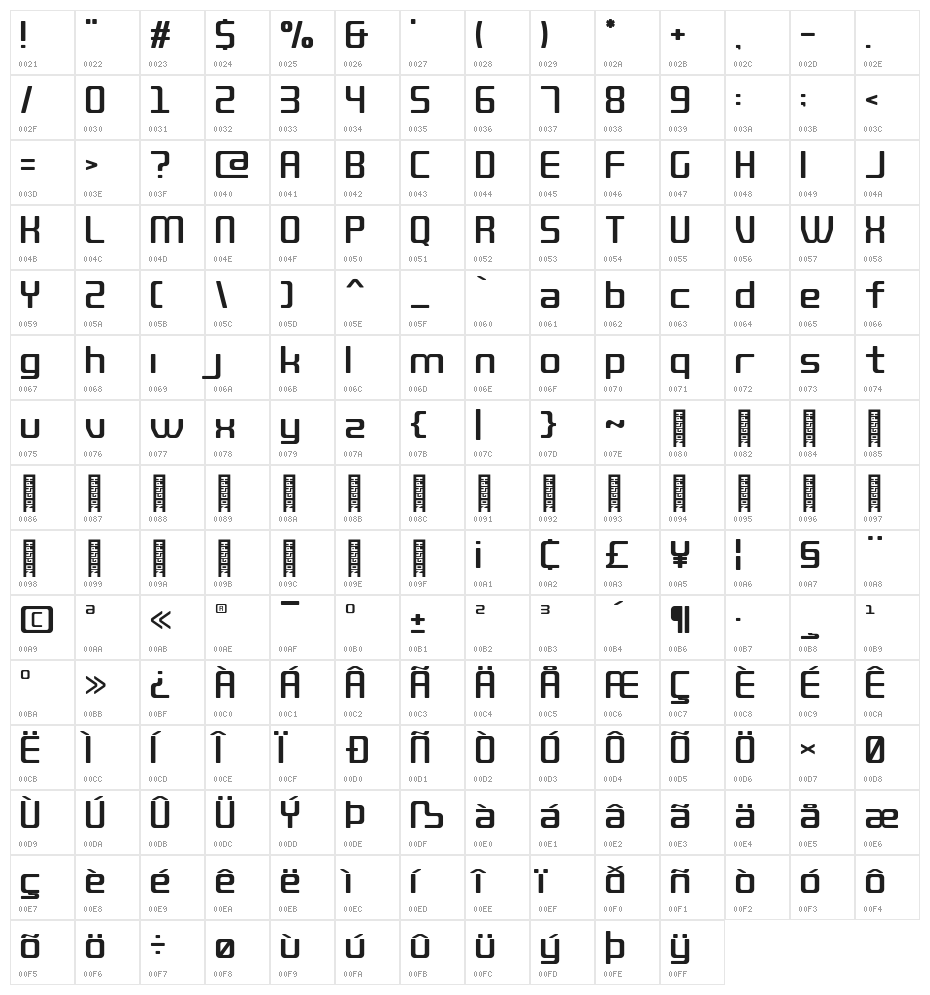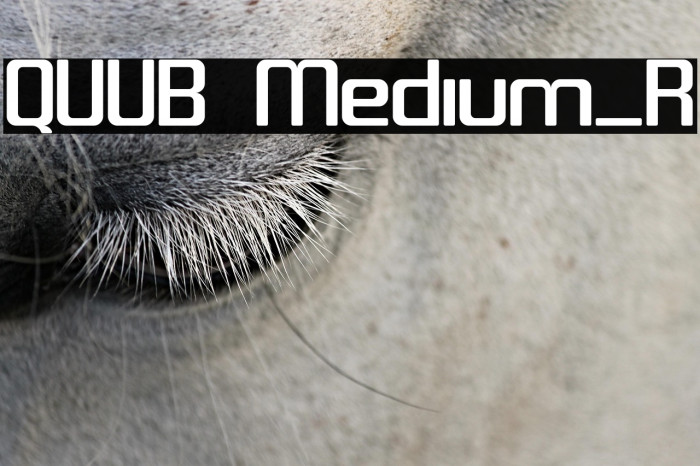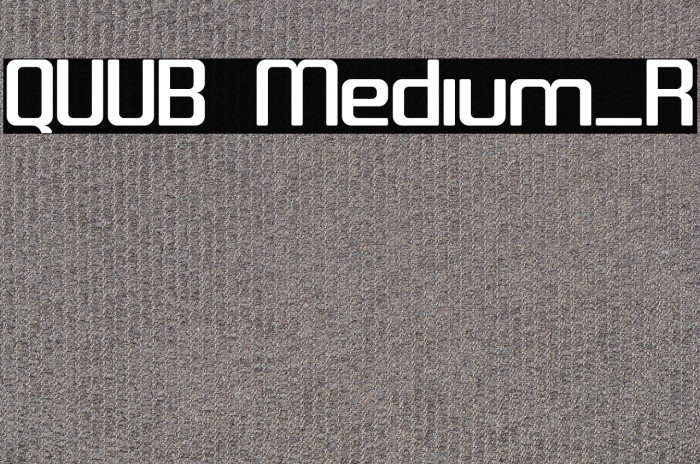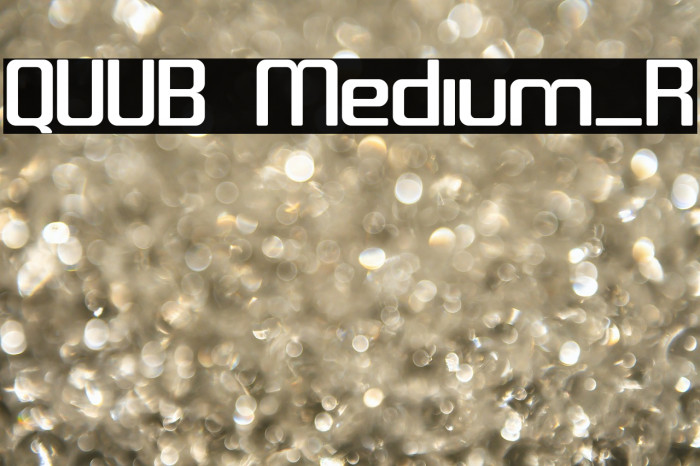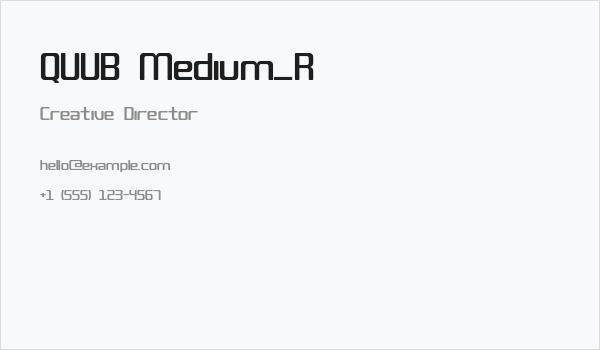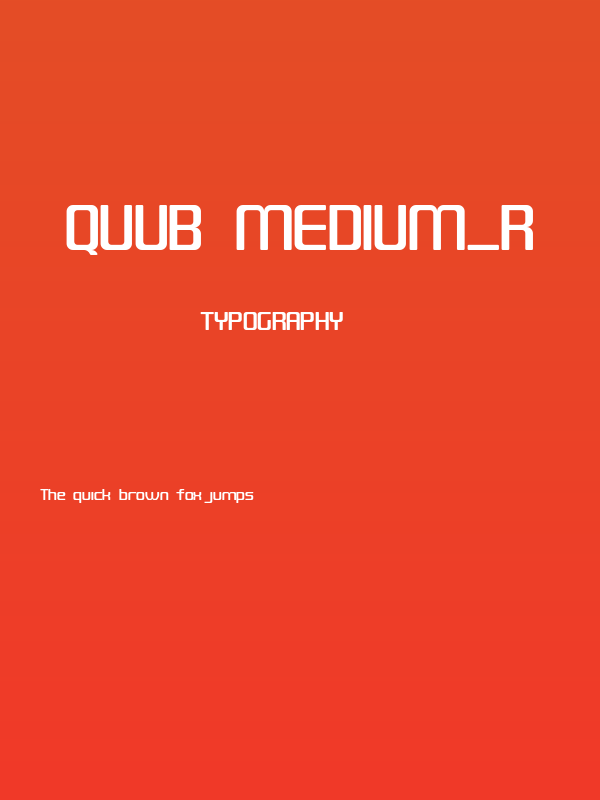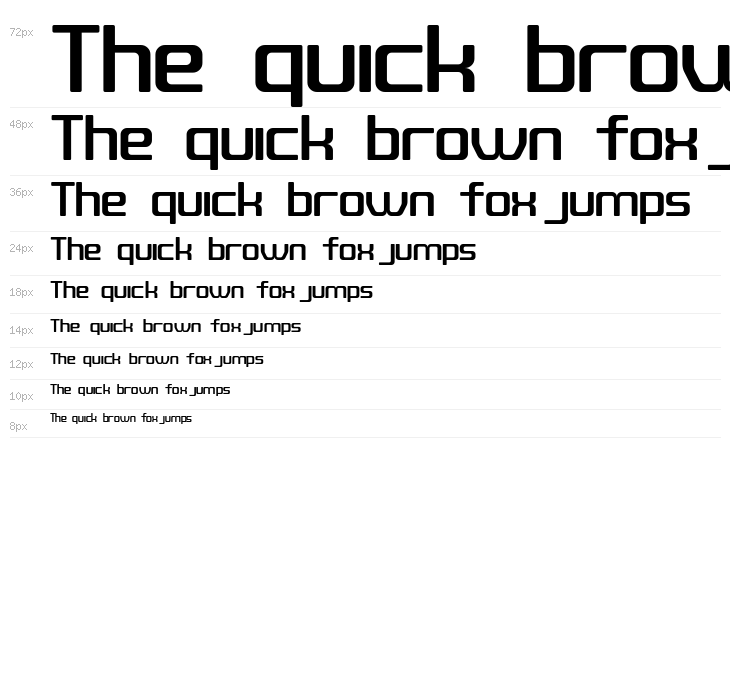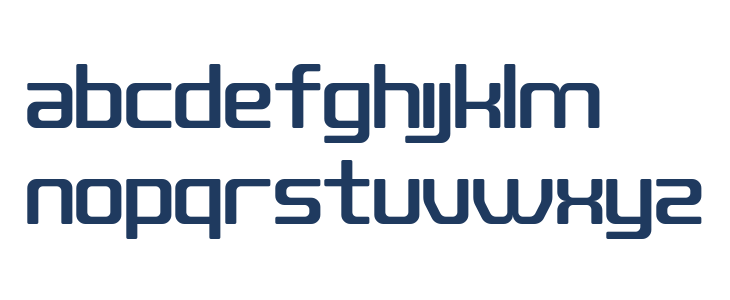
QUUB Medium_R Font
QUUB Medium_R Description
This font features a modern, geometric design with rounded edges, giving it a sleek and contemporary appearance. The characters are uniform in height, with a consistent stroke width that provides a clean and structured look. The uppercase and lowercase letters maintain a similar style, enhancing readability and cohesion. The numerals are distinct and align well with the overall aesthetic, making them easily distinguishable. Special characters are designed to match the font's geometric style, ensuring a harmonious visual experience. This font is versatile, suitable for both digital and print media, and can be used to create a futuristic or tech-inspired feel.
| Use Case | Headlines, Logos, Digital interfaces |
| Proposed Projects | Ideal for tech branding, digital interfaces, modern advertising, and futuristic designs. |